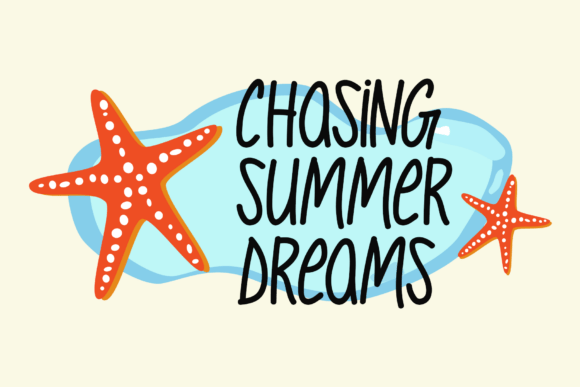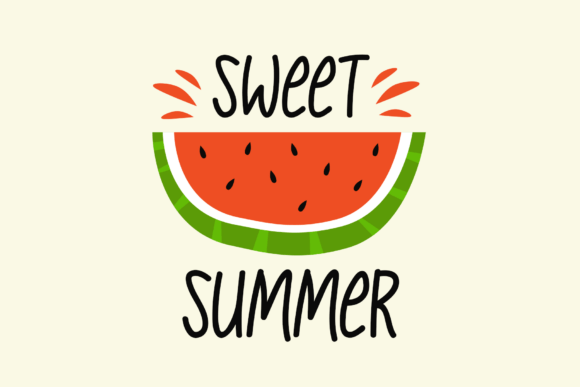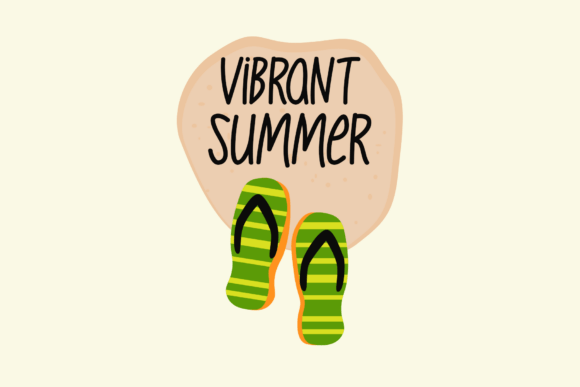
Introduction to Shining Summer Font
A beautifully designed handwritten font that embodies spontaneity and fun is Shining Summer.
It is a fantastic option for branding, clothing, and ornamental print materials because of its delicate, flowing lines This typeface provides a casual yet fashionable touch to any design, whether it’s for sophisticated stationery, striking posters, or captivating social media material.
Shining Summer Font offers exceptional quality and versatility, making it a valuable addition to your design toolkit. Whether you’re creating for personal projects or commercial use, Shining Summer Font delivers professional results.